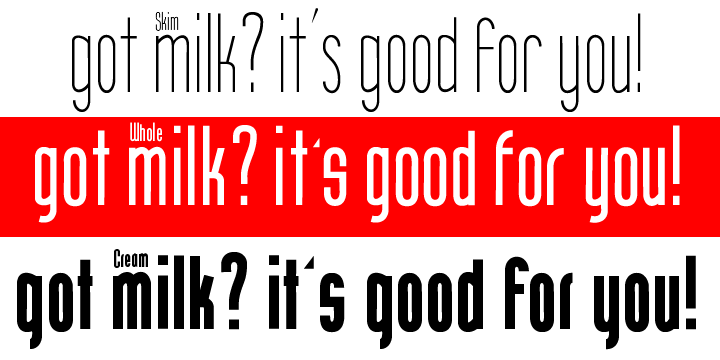
Got Milk Font is perfect for dairy product packaging, organic food branding, farm-to-table restaurants, health food stores, children's nutrition campaigns, breakfast cereal boxes, milk bar signage, wholesome family brands, natural product labels, and nostalgic Americana designs.
Got Milk Font is exciting because it captures the friendly, approachable aesthetic of classic American advertising with clean, wholesome letterforms that evoke trust, nutrition, and family values, making it perfect for brands that want to communicate health, purity, and traditional goodness.
The Got Milk Font family includes regular and bold weights with playful alternates, decorative elements, and health-focused icons, providing designers with versatile options for creating engaging typography that appeals to health-conscious consumers and families.
When your brand needs to communicate wholesome nutrition and family trust, Got Milk Font Free Download provides the ideal typographic foundation for connecting with health-conscious audiences. This friendly display typeface combines nutritional messaging with visual appeal, ensuring your products resonate with parents and consumers seeking authentic, healthy choices. The clean letterforms and approachable styling make this font an excellent choice for food brands, health campaigns, and any application where nutritional credibility and family-friendly values are essential for building consumer confidence and loyalty in today's health-focused marketplace.